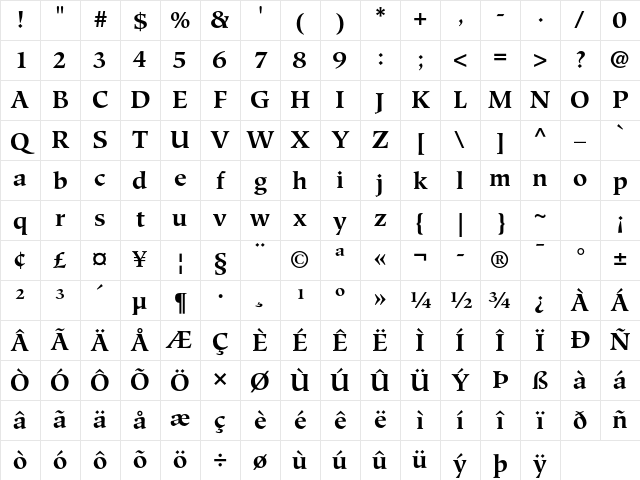
Hiroshige Std Bold
Designer: Cynthia Hollandsworth
Design Context for Hiroshige Std
Hiroshige Std is a composed and adaptable typeface that performs quietly and consistently across a wide range of design contexts. Its bold stroke weight gives it real presence on the page.